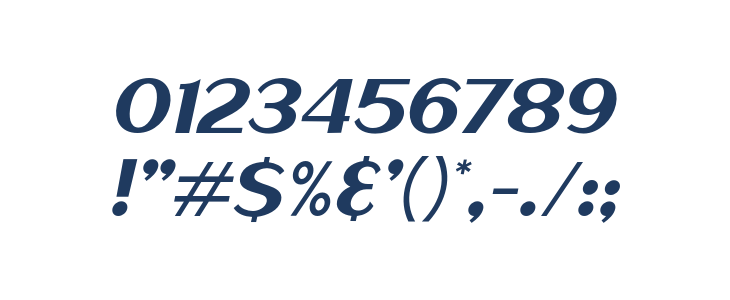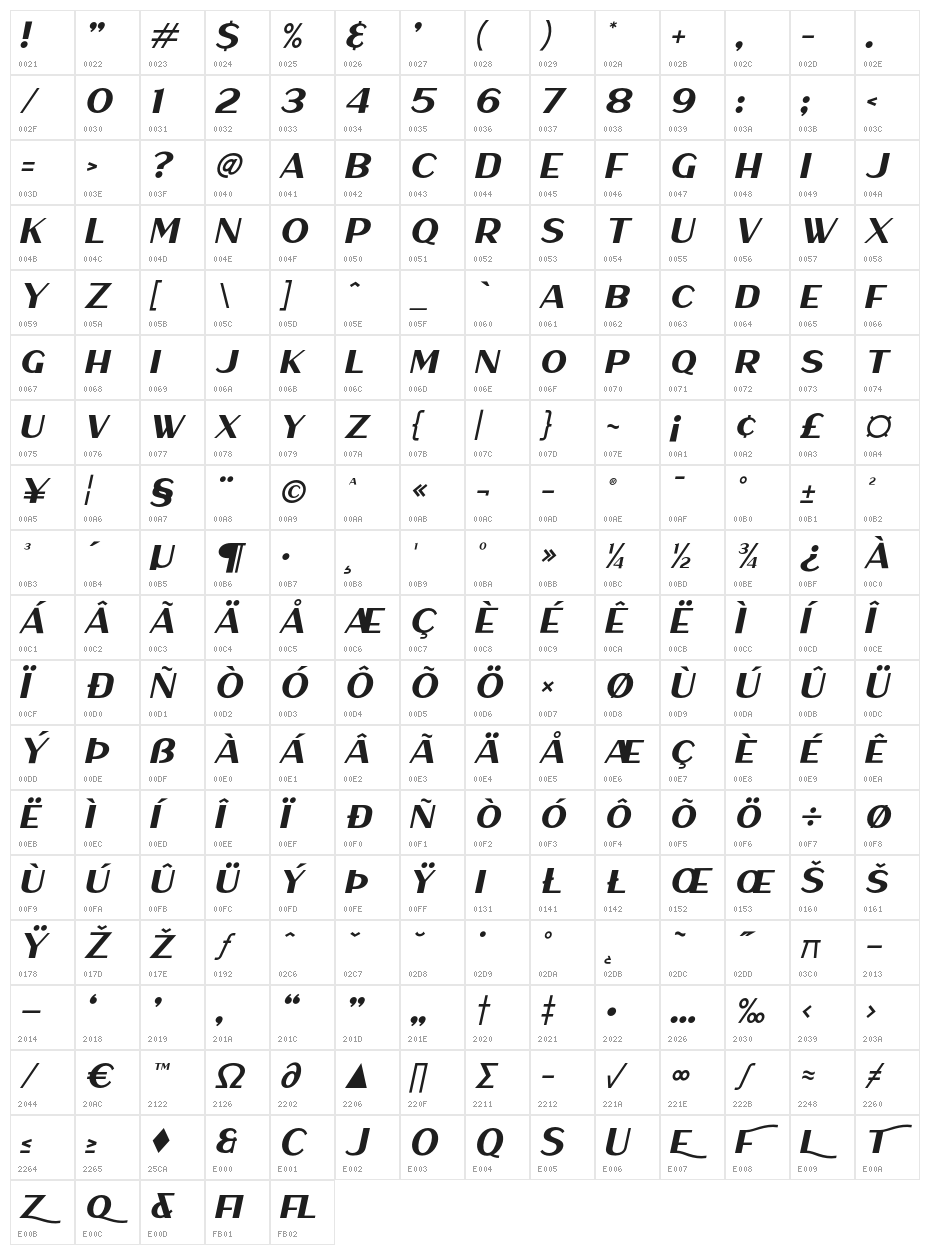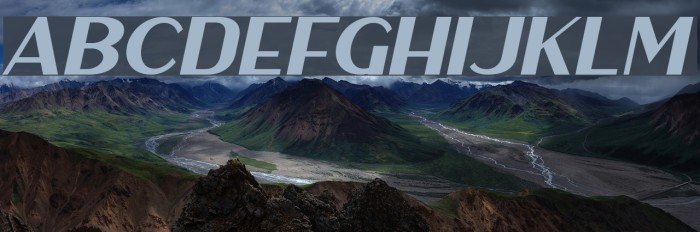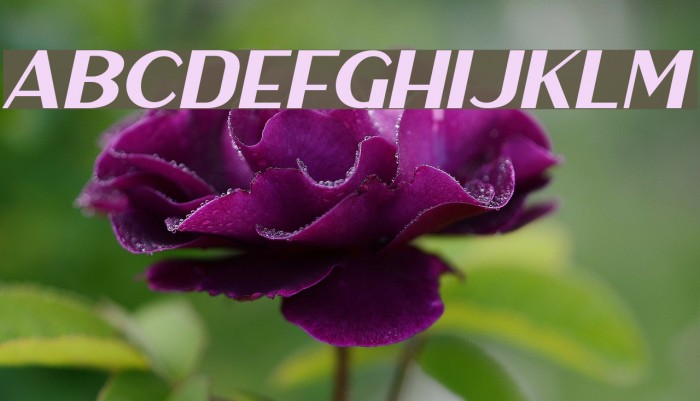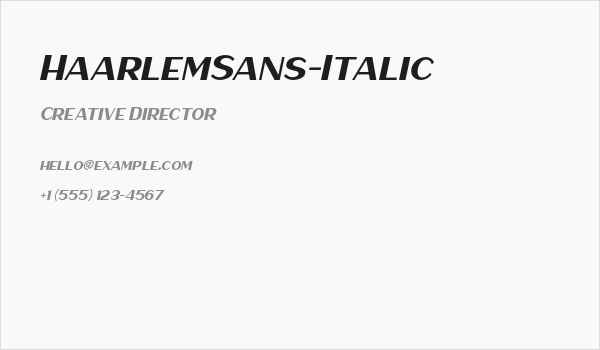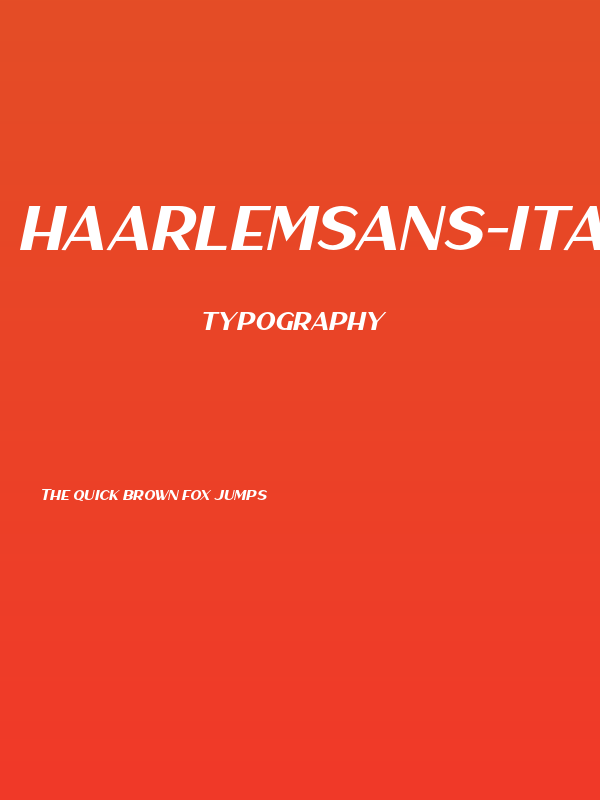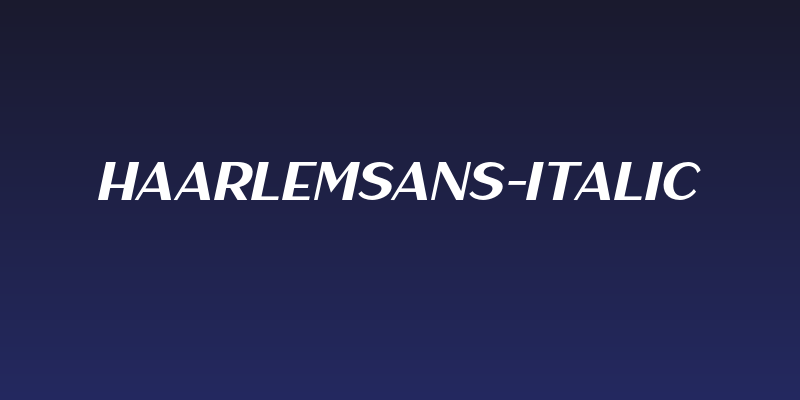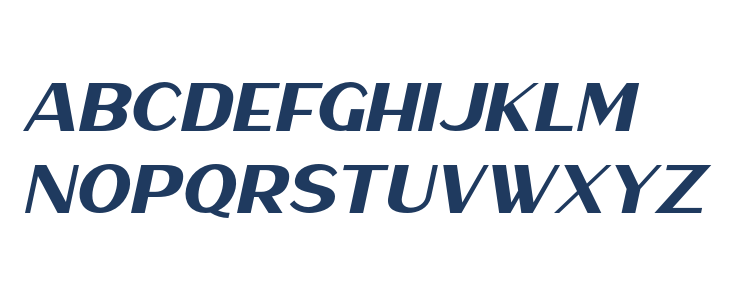
HaarlemSans-Italic Font
HaarlemSans-Italic Description
This font features a sleek and modern sans-serif style with a distinct italic slant, giving it a dynamic and forward-moving appearance. The characters are well-proportioned, with a slight emphasis on the horizontal strokes, which adds to its contemporary feel. The uppercase letters are bold and assertive, while the lowercase letters maintain a consistent flow, enhancing readability. The numerals are clear and balanced, making them suitable for both display and text purposes. Special characters are designed with precision, ensuring they complement the overall aesthetic of the font.
| Use Case | Headlines, Logos, Editorial design |
| Proposed Projects | Ideal for branding, advertising, and editorial design projects that require a modern and stylish touch. |